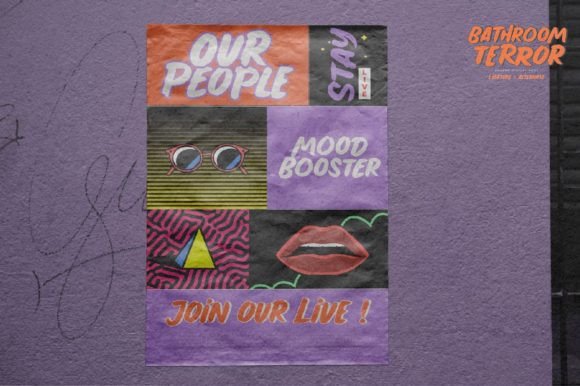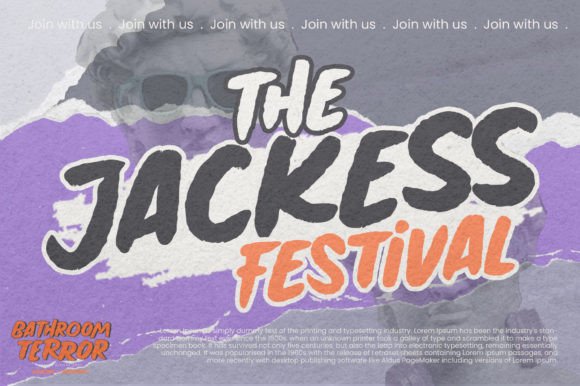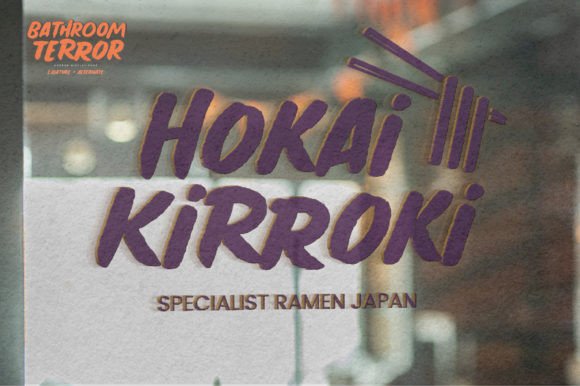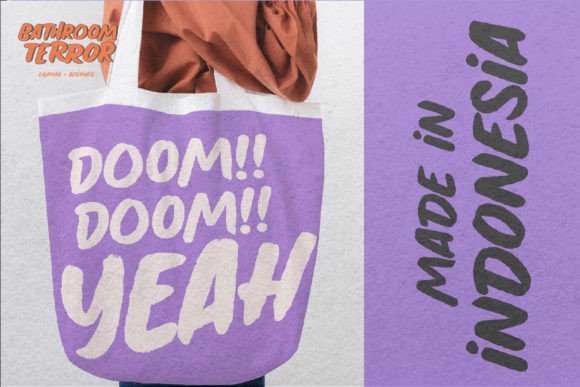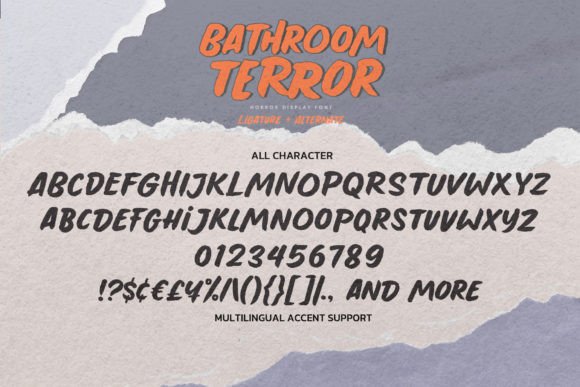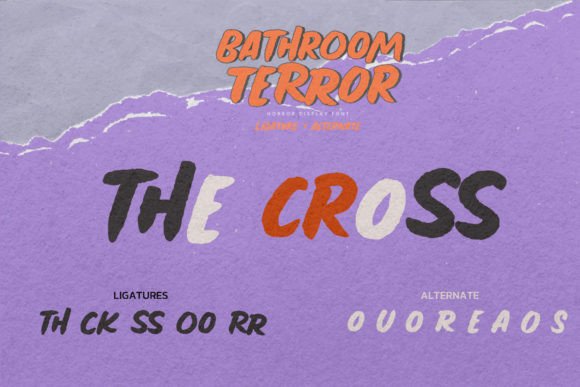
Bathroom Terror Font: The Ultimate Choice for Dramatic and Classy Designs
Are you a designer or crafter looking for a font that can add a touch of horror and elegance to your projects? Look no further than the Bathroom Terror Font. This textured natural style font is perfect for creating bold and dramatic titles that will leave a lasting impression on your audience.
A Strong and Prominent Feel
The Bathroom Terror Font is designed to create a strong and prominent feel on the page or screen. It uses capital letters to make a statement, making it perfect for horror stories, children’s storybooks, and headlines. The font’s bold and dramatic movement is sure to grab attention and add a touch of excitement to any design.
Versatile and Multifaceted
The Bathroom Terror Font is not just limited to horror stories and children’s book titles. Its versatility makes it perfect for a wide range of design projects, including:
- Invitations and cards
- Product packaging and labels
- Headers and logotype
- Letterhead and posters
- Watermarks on photography
- Advertisements and product designs
- Stationery and wedding designs
The Bathroom Terror Font is perfect for designers and crafters who want to add a touch of horror and elegance to their projects. Whether you’re creating a children’s storybook, a logo, or a product design, this font is sure to make a statement.
- Textured natural style
- Classy and dramatic movement
- Uses capital letters to create a strong prominent feel
- Perfect for horror stories, children’s storybooks, and headlines
- Versatile and multifaceted, suitable for a wide range of design projects
Tips for Using the Bathroom Terror Font
Here are a few tips for using the Bathroom Terror Font in your designs:
- Use it sparingly: The Bathroom Terror Font is bold and dramatic, so use it sparingly to avoid overwhelming your design.
- Pair it with a simple font: Pair the Bathroom Terror Font with a simple font to create a striking contrast and add visual interest to your design.
- Experiment with different colors: The Bathroom Terror Font looks great in bold and bright colors, so experiment with different colors to find the one that works best for your design.
The Bathroom Terror Font is a versatile and multifaceted font that is perfect for designers and crafters who want to add a touch of horror and elegance to their projects. Its textured natural style, classy and dramatic movement, and PUA encoding make it a great choice for a wide range of design projects. Whether you’re creating a children’s storybook, a logo, or a product design, the Bathroom Terror Font is sure to make a statement.